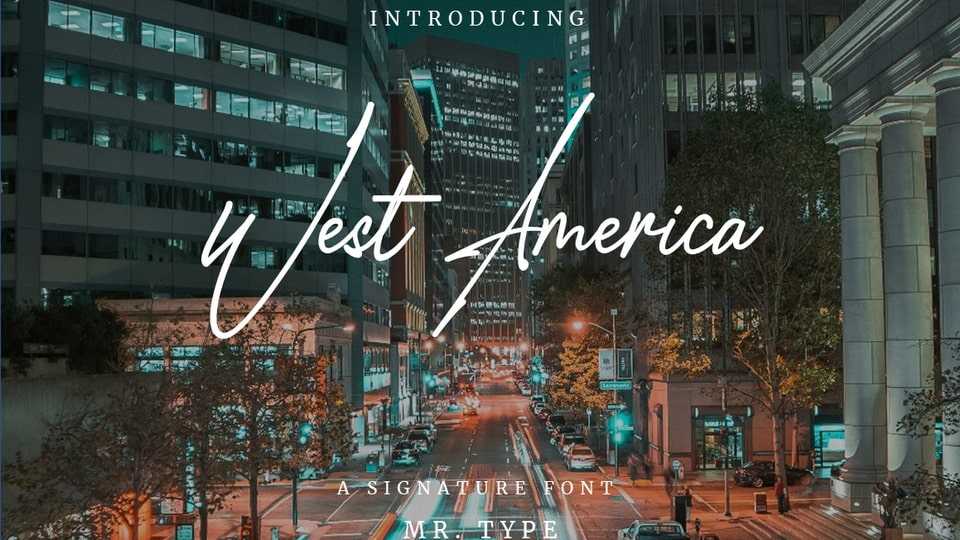
Download West America font, a signature typeface, so beautiful elegant, and classy. West America is suitable for many different designs for business card, quotes, social media, signature, wedding invitations, advertisements, product designs, label, photography, watermark and more.
Designer: Mr Type